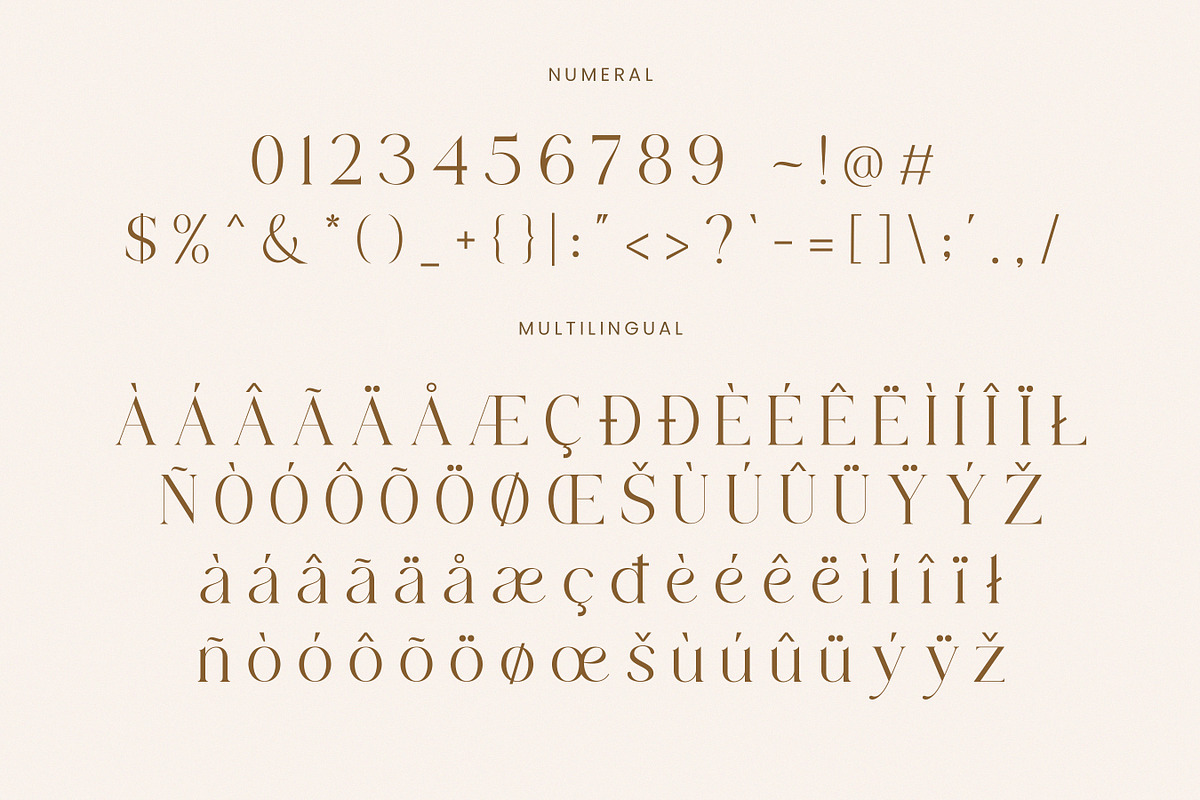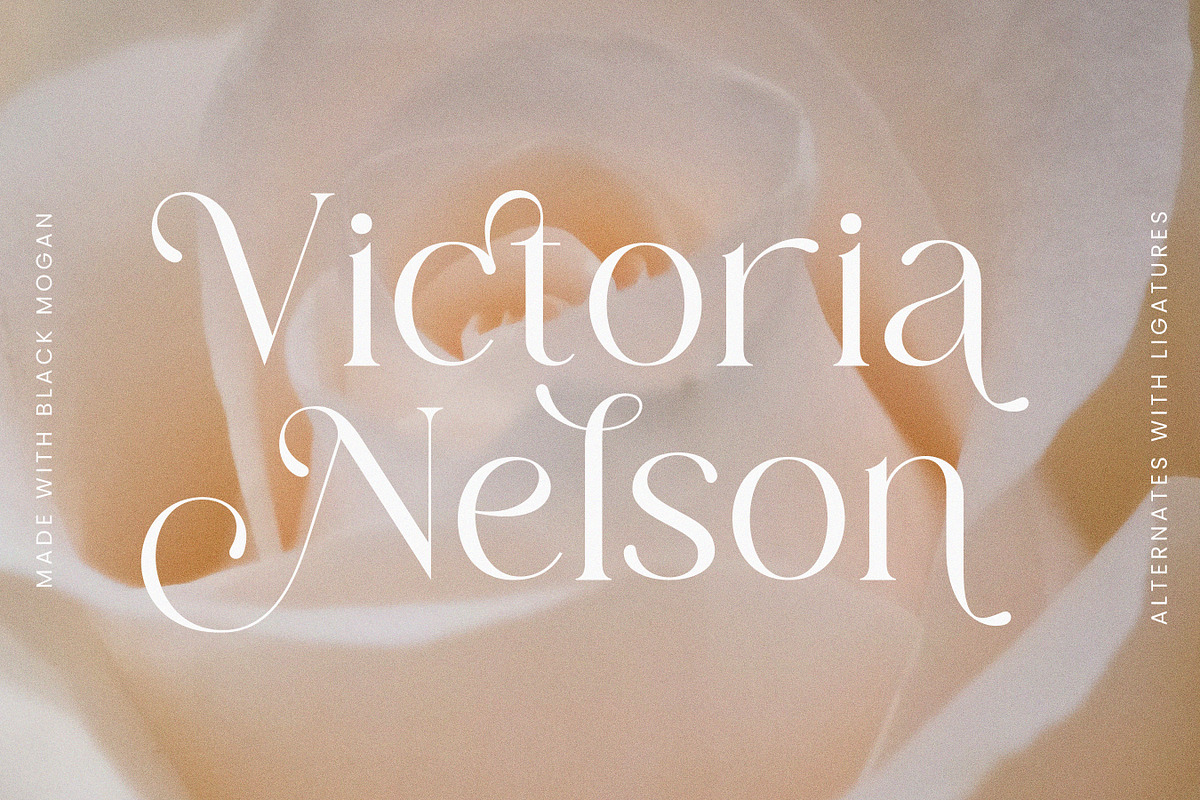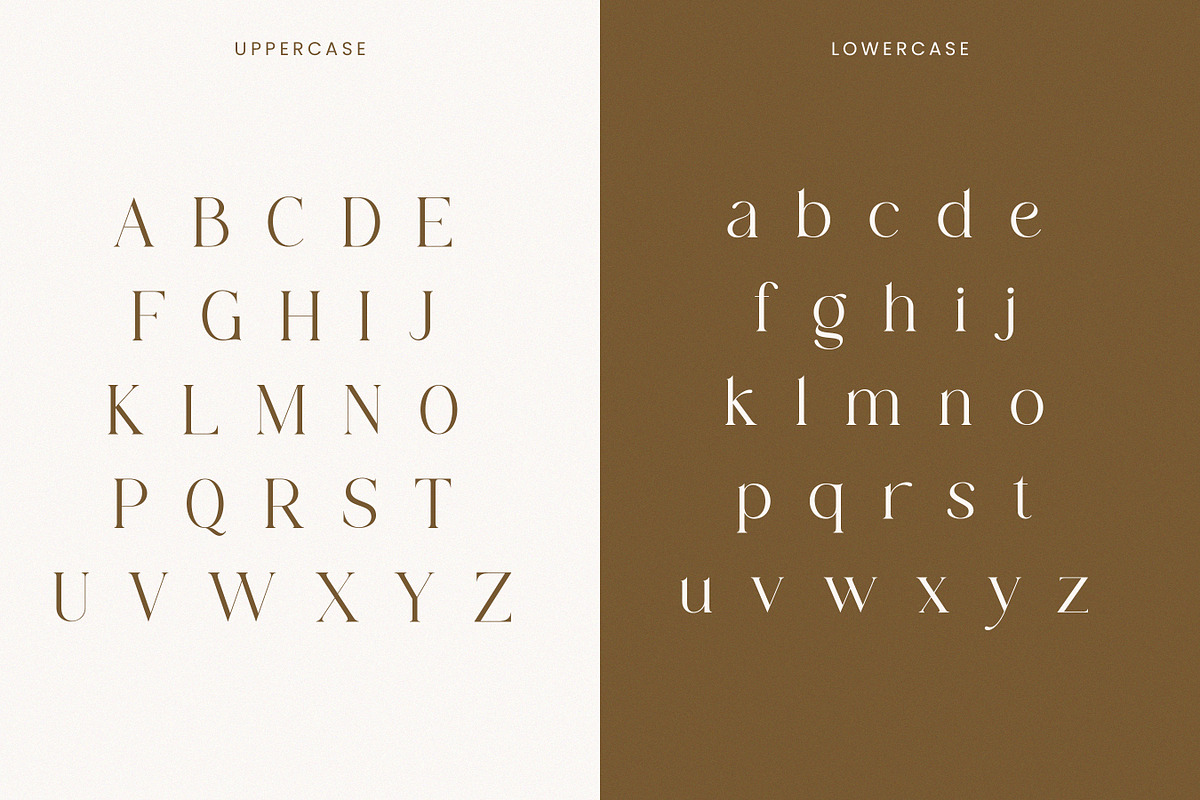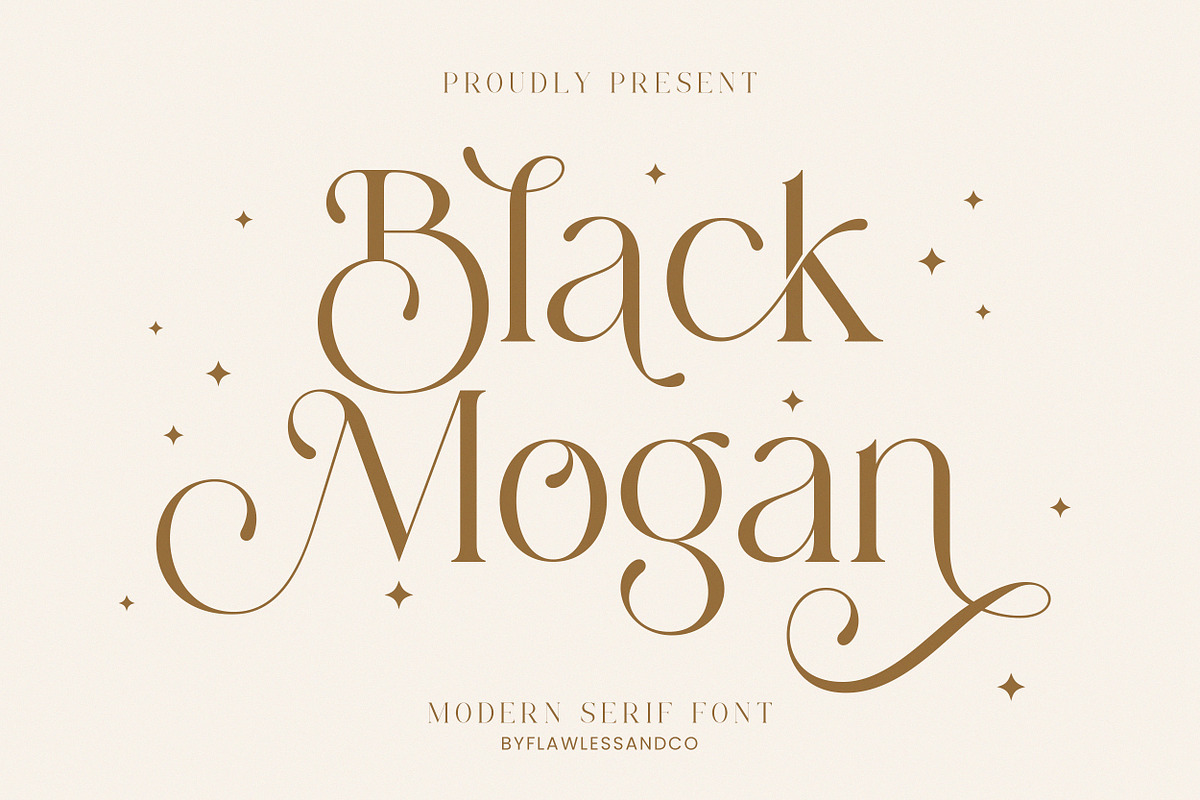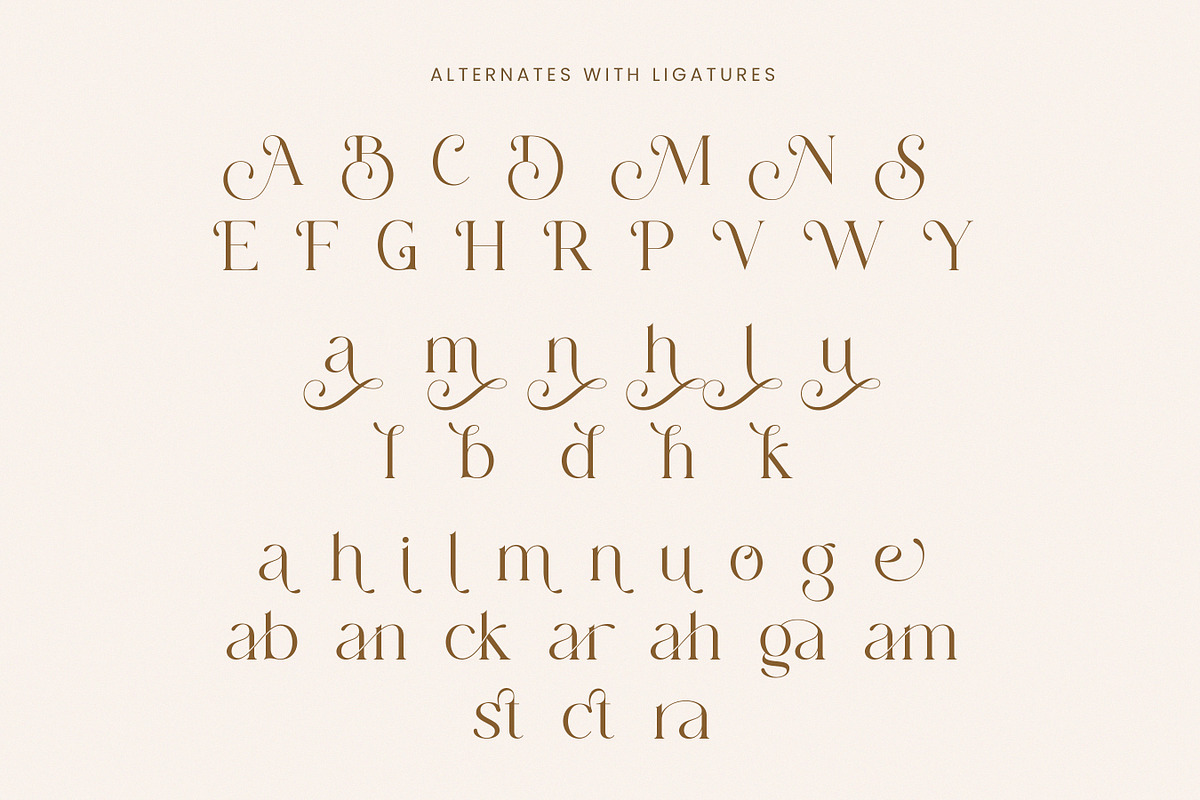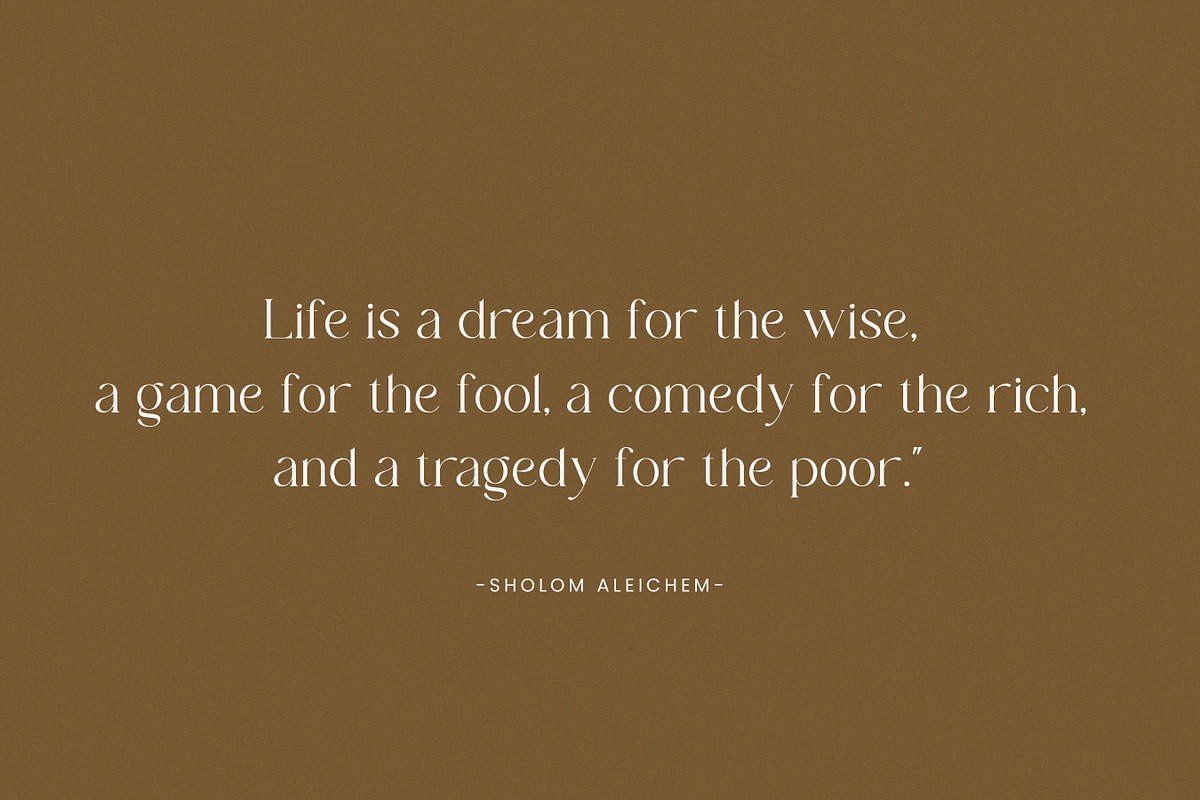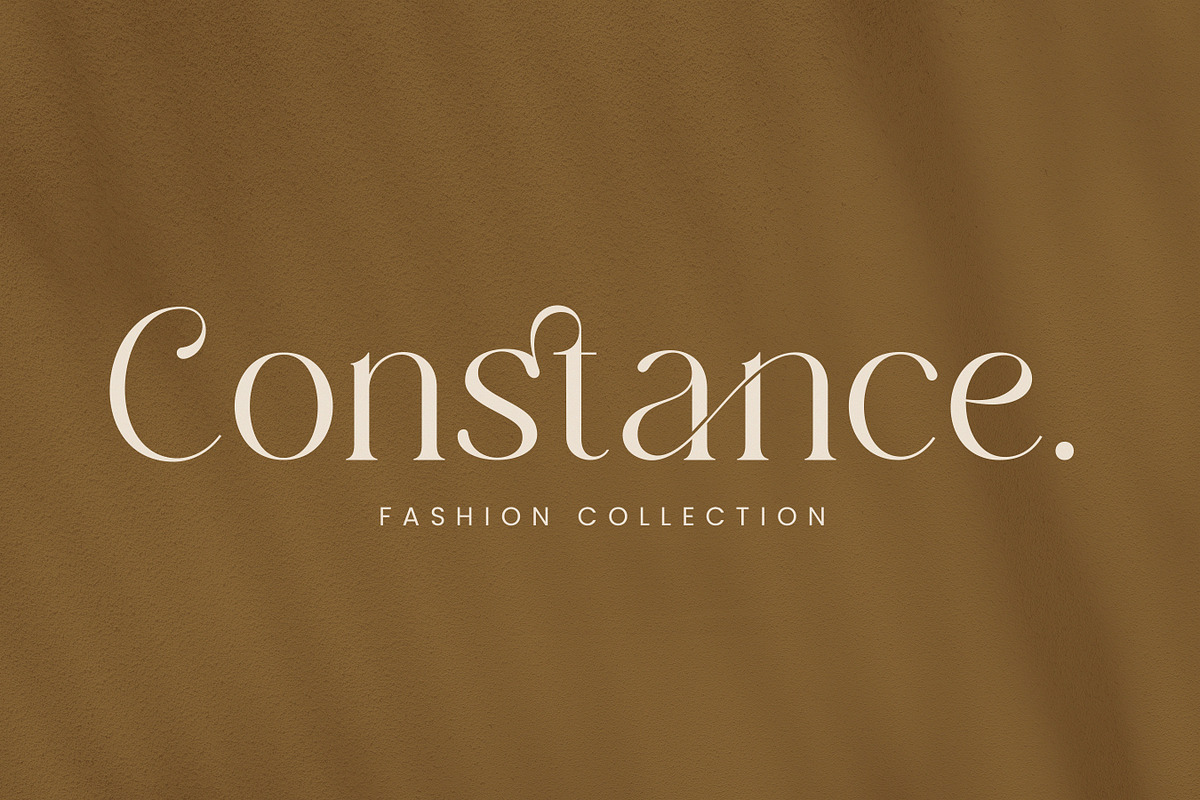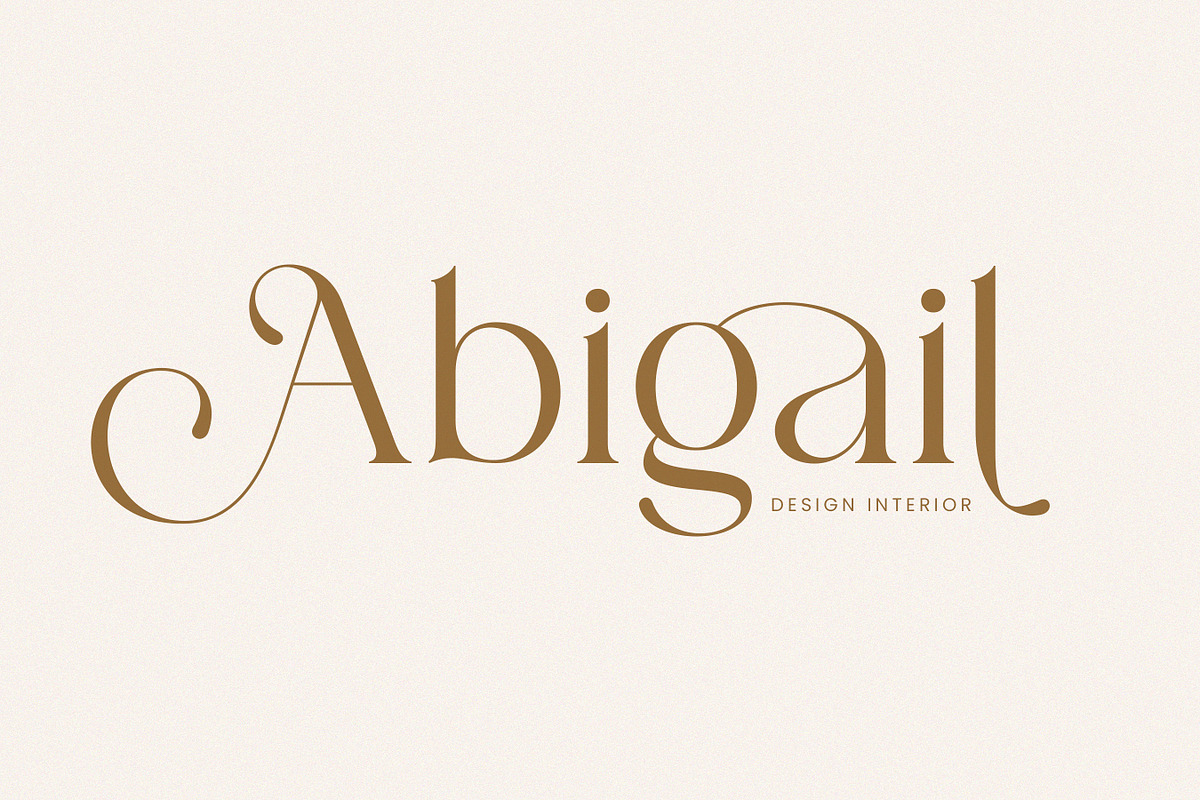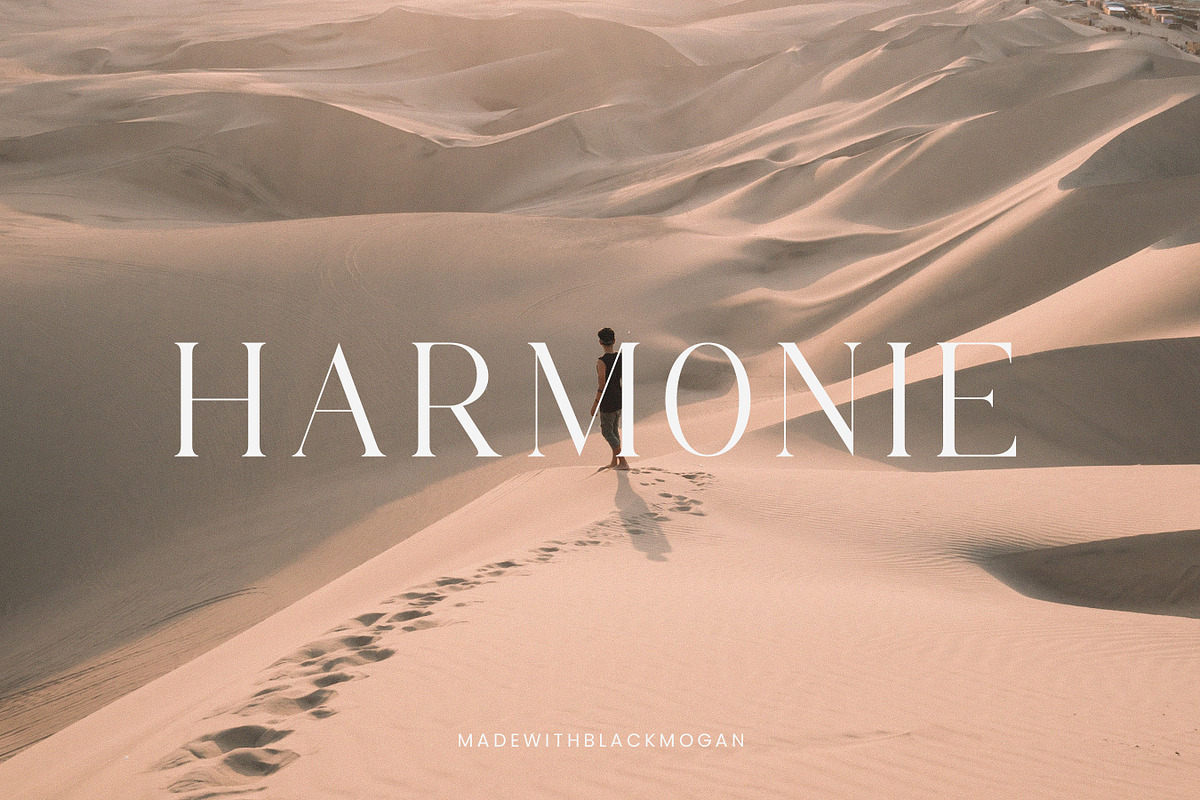
Mogan-Modern Serif Font
Introducing our new "Mogan" Modern Serif Font with some alternates and ligatures that are perfect for branding, logos, invitation, master heads, and more.
Multilingual Uppercase alphabet A-Z Lowercase alphabet a-z Alternate Character Numbers 0-9 Some punctuation